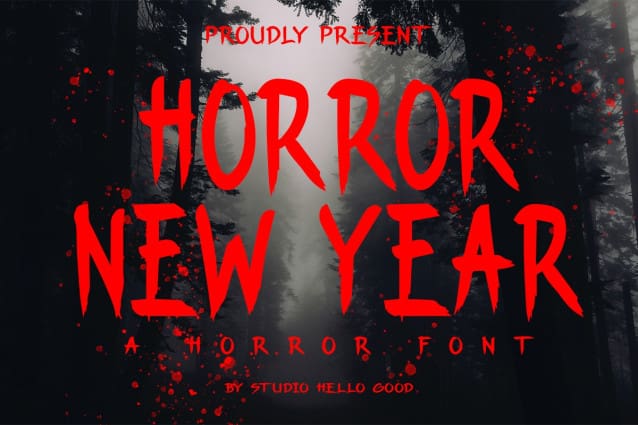
Horror New Year Font
Horror New Year Font – Cool brush horror display font. Horror New Year Font is a challenging and very popular horror band/music or brush font that has a modern style to become a market favorite. It is elegant, classy, easy to read, stylish, attractive and easy to use. It’s a great choice for band competitions, music, movies, challenging designs, and other projects. It’s here to take your designs to the next level!